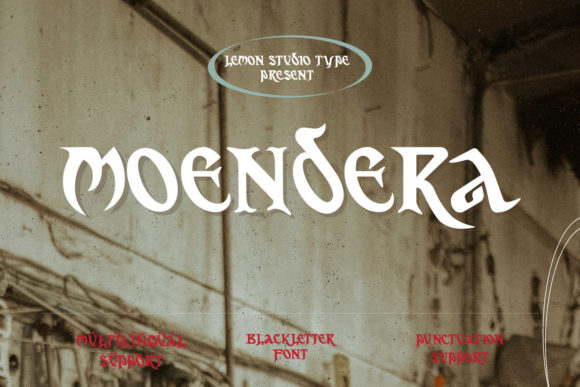
Introducing Moendera Font, a wondrous creation inspired by the ancient art of blackletter calligraphy. Its intricate strokes and bold character will make your designs shine. Crafted with the utmost care and passion by the talented WildaKhairunnisa, this font is more than just a collection of letters – it's a tool to unleash your creativity.
Whether you're a seasoned designer or just starting your journey, Moendera Font is the perfect companion. Its gothic charm will add a touch of sophistication to your logos, packaging, and invitations, leaving a lasting impression on all who see it.
Imagine the possibilities when you combine Moendera Font with your favorite designs. It's like adding a sprinkle of magic to your creations, bringing them to life with undeniable elegance. The bold strokes command attention, making your designs impossible to ignore.